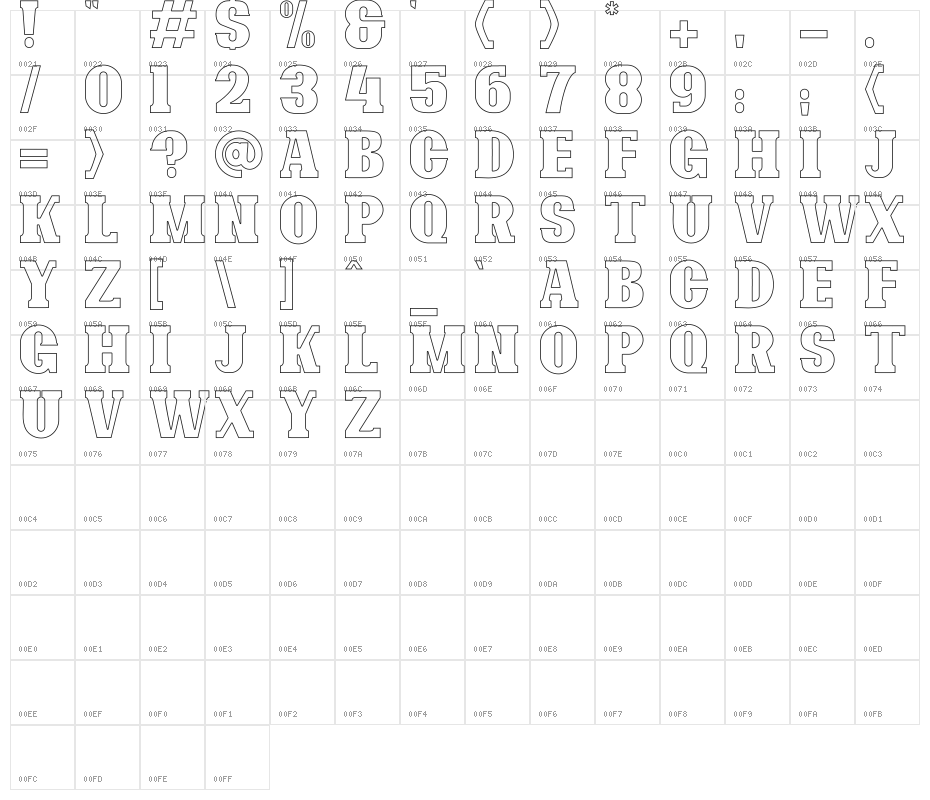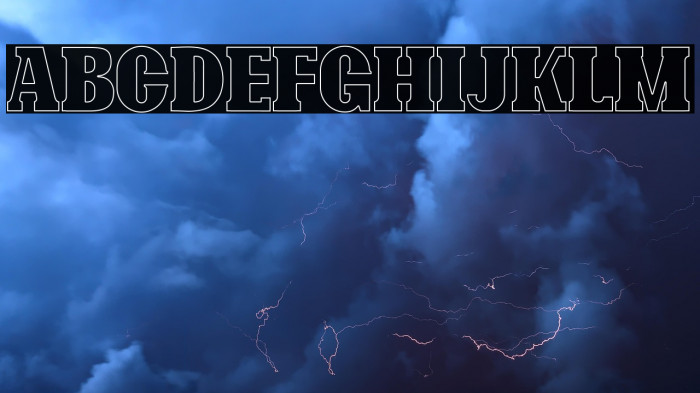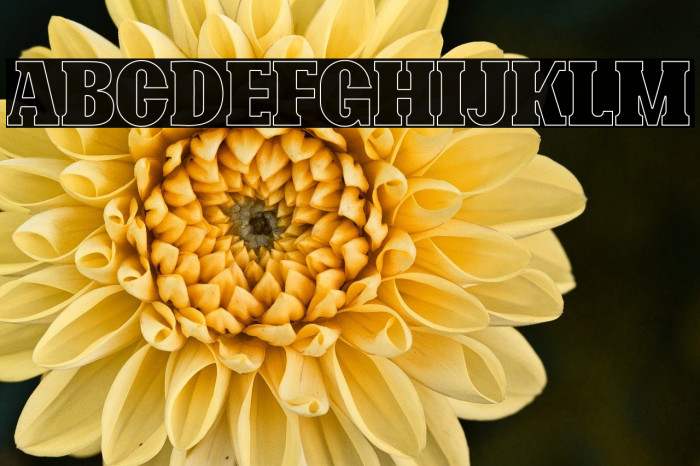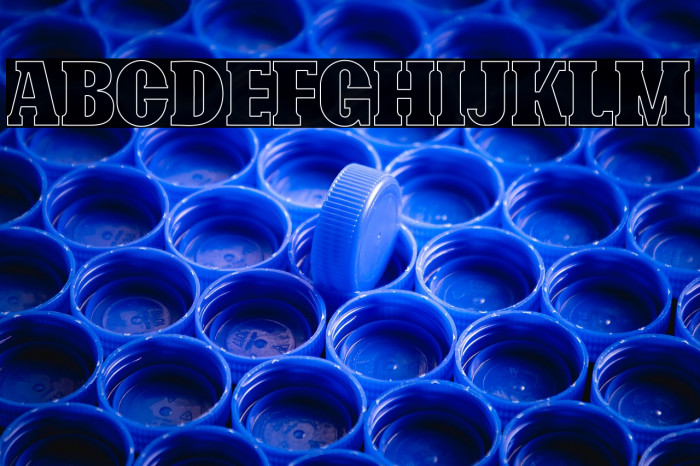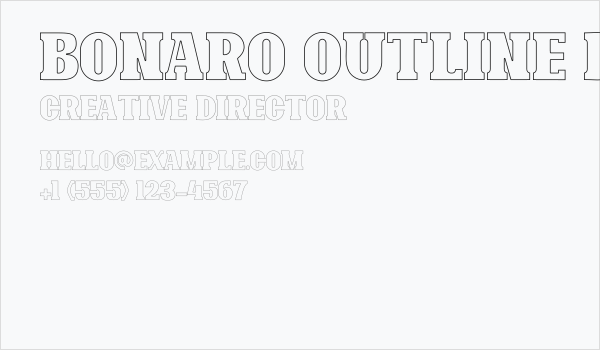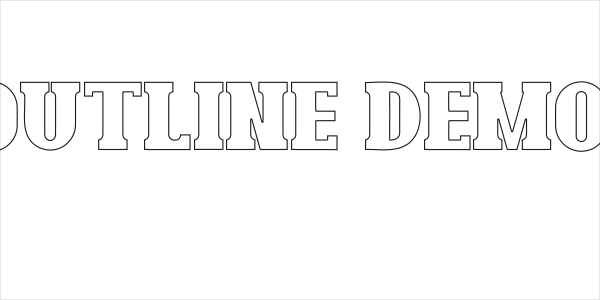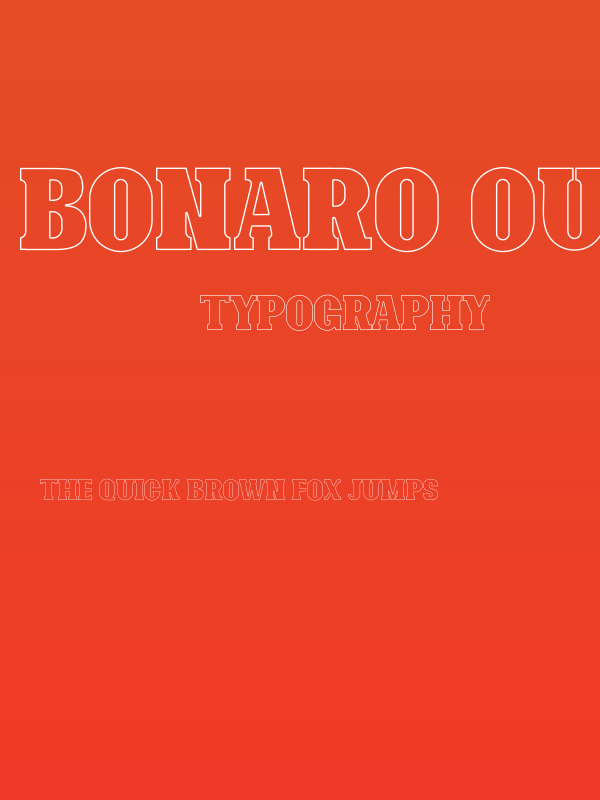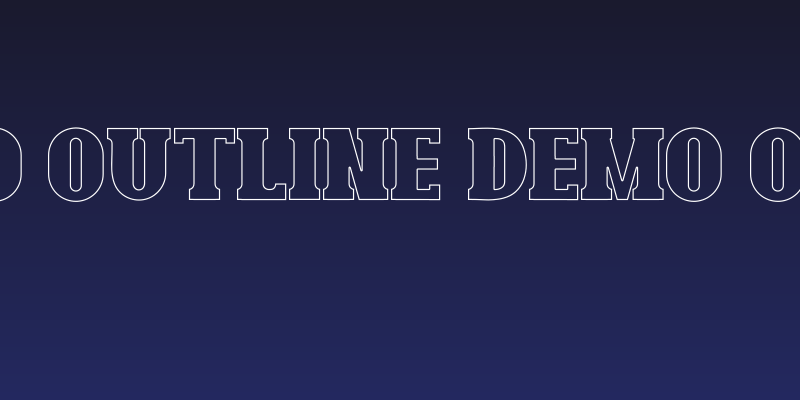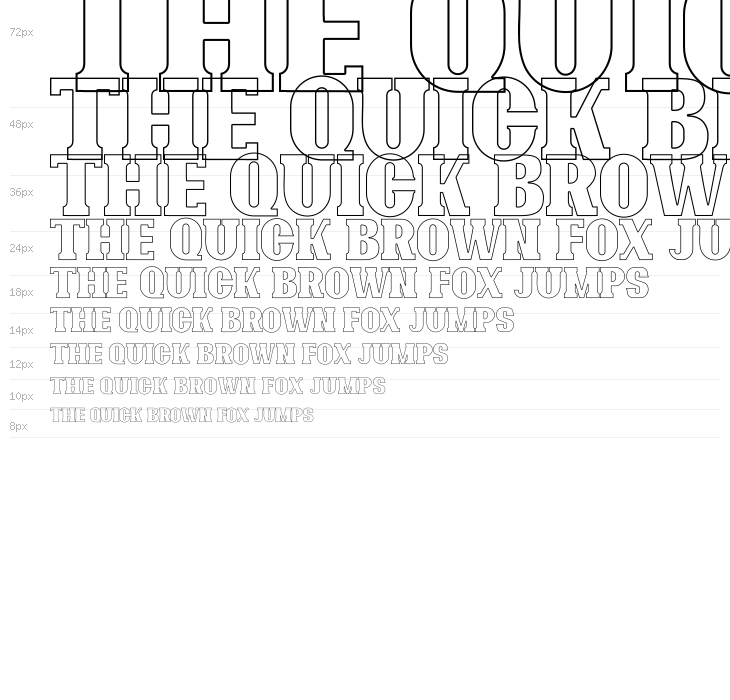
Bonaro Outline Demo Outline Font
Bonaro Outline Demo Outline Description
This font features a bold, outlined style that gives each character a strong and impactful presence. The uppercase and lowercase letters maintain a consistent width, creating a uniform and balanced appearance. The outline design adds a layer of depth and dimension, making it ideal for eye-catching displays. The numerals and special characters are crafted with the same attention to detail, ensuring a cohesive look across all elements. This font is perfect for projects that require a bold statement without overwhelming the viewer.